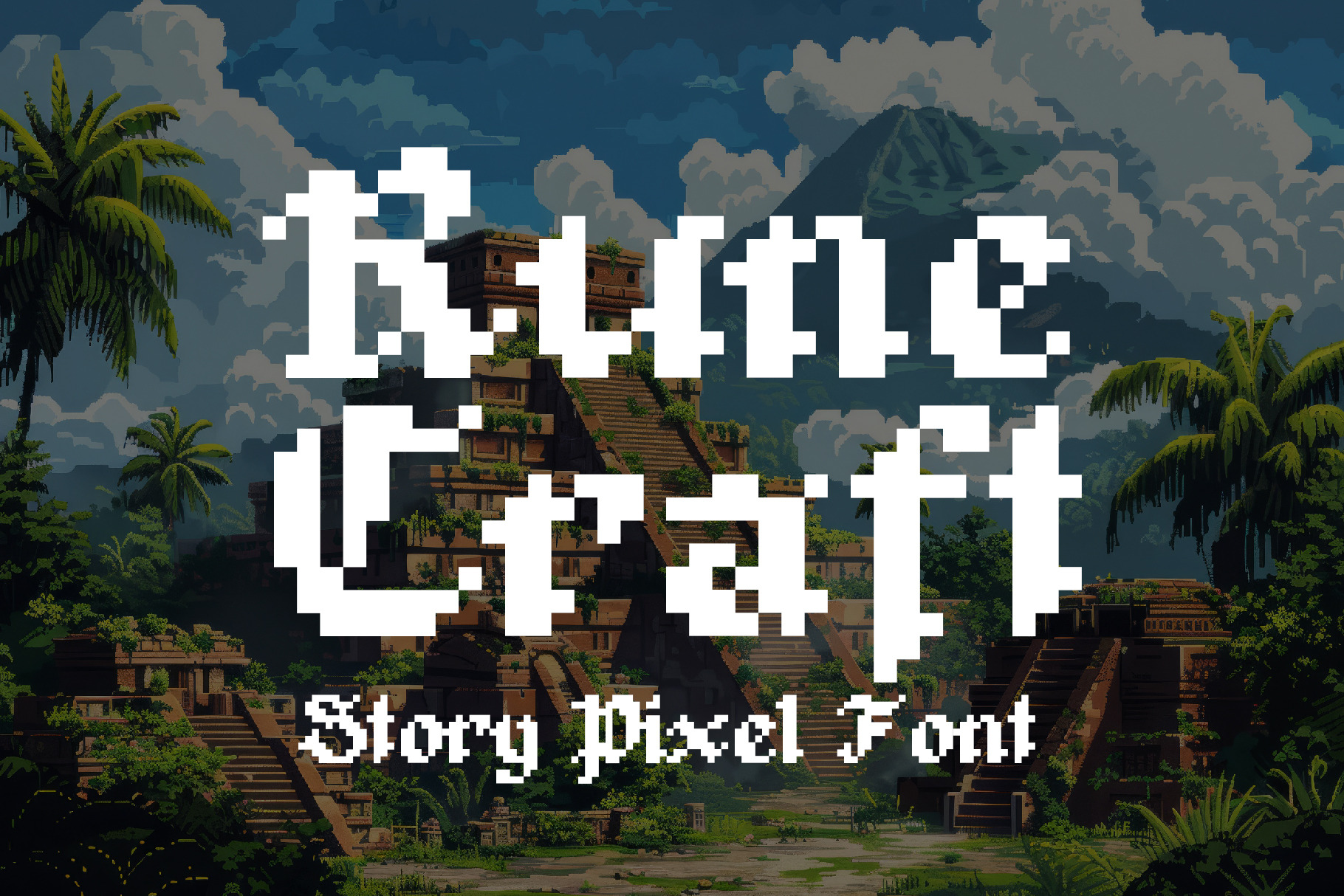
Rune Craft - Story Pixel Font
Embark on a journey through pixelated landscapes and mystical narratives with Rune Craft, the ultimate 8-bit pixel font tailored for the art of storytelling. Crafted with the essence of ancient runes and the charm of retro gaming, Rune Craft bridges the worlds of fantasy and digital artistry, making it a perfect companion for creators who wish to weave tales that captivate and enchant.
Rune Craft is not just a font; it's a portal to other worlds. Its characters, inspired by the mystique of old Norse and Celtic runes, are meticulously designed to add depth and magic to every word, turning ordinary texts into mesmerizing scripts of lore and legend. Whether you're penning a digital epic, crafting the UI for your next game, or designing a website that tells a story, Rune Craft is designed to elevate your narrative.
Key Features of Rune Craft:
- Fantasy Infused: Each character draws inspiration from ancient runic alphabets, offering a touch of mysticism and antiquity.
- Pixel Perfection: Optimized for digital screens, Rune Craft captures the nostalgic feel of 8-bit graphics while maintaining crisp clarity.
- Versatile Use: Ideal for game development, digital storytelling, and decorative design, its unique style ensures your project stands out.
- Wide Character Set: Equipped with a broad range of glyphs, Rune Craft supports diverse languages and special symbols, making it incredibly versatile.
- Adaptable: Whether set against dark forebodes or vibrant landscapes, Rune Craft remains strikingly legible, ensuring your message is always clear.
Rune Craft is more than a font—it's a key to unlocking the imagination, designed for developers, designers, and storytellers who dare to venture into the unknown and bring back tales of adventure, magic, and heroism. With Rune Craft, every word you write is a spell cast, inviting readers and players into the worlds you create. Let Rune Craft be the voice of your stories, and watch as your narratives come to life in the pixelated glow of fantasy and adventure.